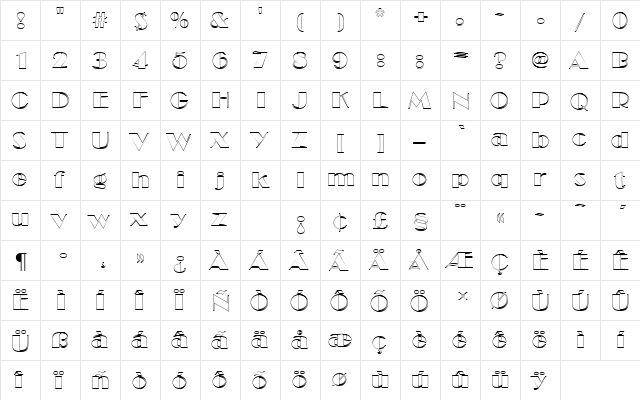
BroadwayDOu1 Regular
Design Context for BroadwayDOu1 Typeface
BroadwayDOu1 is a composed and adaptable typeface that performs quietly and consistently across a wide range of design contexts.